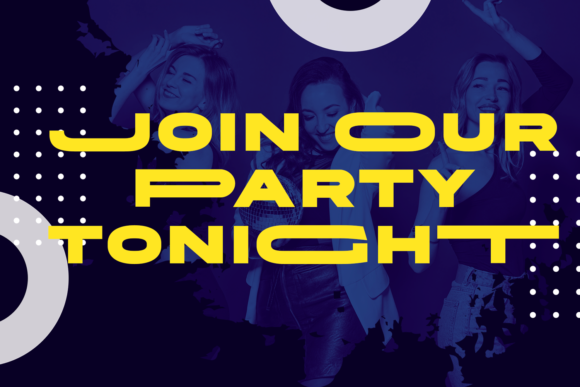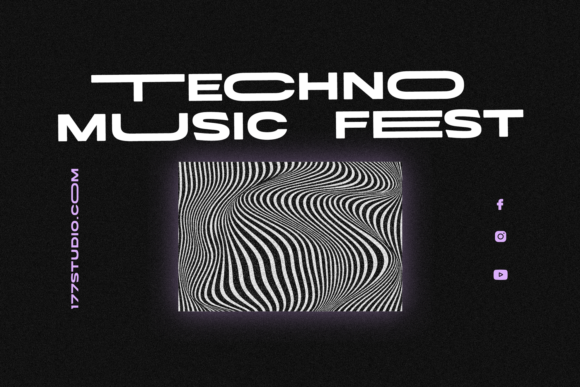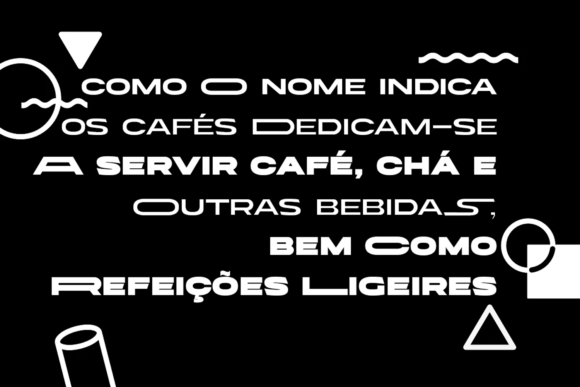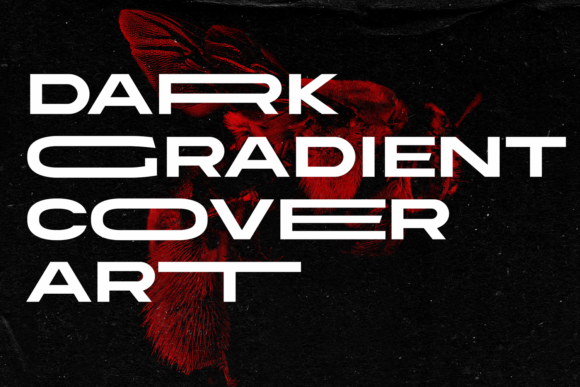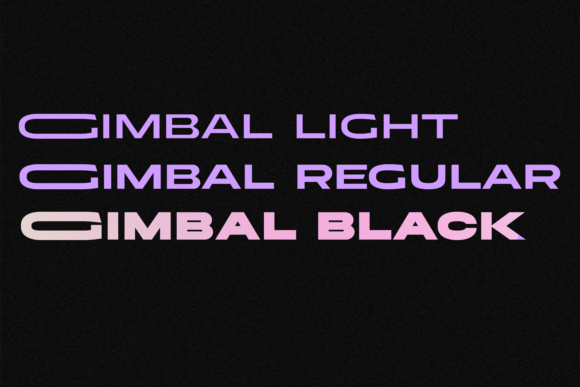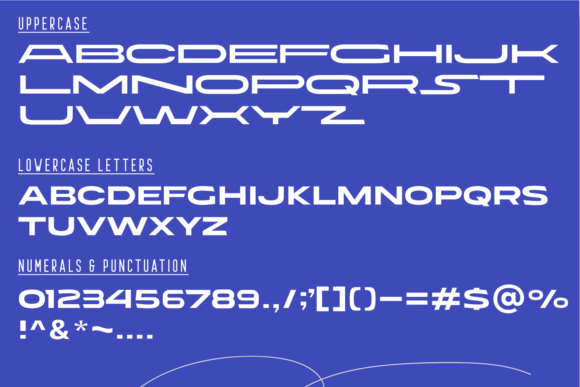
The Perfect Typography Twist: Unlocking the Power of Gimbal Extended Font
As a designer, you know that moment when you’re working on a project and you’re just about to give up – the creative block has got you stuck. You scroll through your fonts, and suddenly, it hits you – a spark of inspiration. That’s exactly what happened to me when I stumbled upon the Gimbal Extended Font. Its quirky and fun design instantly grabbed my attention, and I knew I had to learn more.
The Gimbal Extended Font is a display font that’s designed to add a touch of whimsy to your creations. Simple yet visually striking, it’s perfect for adding a playful twist to your designs. Whether you’re a graphic designer, a UI/UX expert, or a social media guru, this font is sure to elevate your work and make it stand out from the crowd.
Gimbal Extended Font Key Features
- Font Family: Gimbal Extended, a modern sans-serif typeface designed for digital use.
- Character Count: 1280 glyphs, including a wide range of languages, including Latin, Cyrillic, and Greek alphabets.
- Font Size: Available in 12 different font weights, from Thin to ExtraBold, allowing for flexibility in design applications.
- Unique Characteristics: Features a unique geometric structure, with subtle rounded edges and a highly legible design, making it ideal for digital interfaces and publications.
Gimbal Extended Font Review
Gimbal Extended Font is a beautiful, high-quality font that shines in various applications ✨. The font’s unique style and clean lines make it perfect for headings, titles, and any other situation where you want to add a touch of elegance. Its versatility and sophistication are truly impressive.
- Legibility: The font is highly legible, even at smaller font sizes. This makes it a great choice for body text, especially in digital media.
- Flexibility: The font works well in various contexts, from modern designs to more traditional settings. It’s a great addition to any design project.
However, there are some limitations to consider ⚠️. The font’s extended style can sometimes feel too elaborate for simpler designs. Additionally, the font’s unique style may not be suitable for all audiences or cultures.
Overall, Gimbal Extended Font is a high-quality font that can elevate any design project. While it may have some limitations, its unique style and versatility make it a valuable addition to any designer’s toolkit.
For best results, use Gimbal Extended Font in bold or italic styles to add emphasis to your text.
For best results, use Gimbal Extended Font in combination with other creative assets, such as graphics and textures.
For best results, use Gimbal Extended Font in headings and titles to add visual interest to your content.
Use Gimbal Extended Font in creative fields such as graphic design, advertising, and packaging.